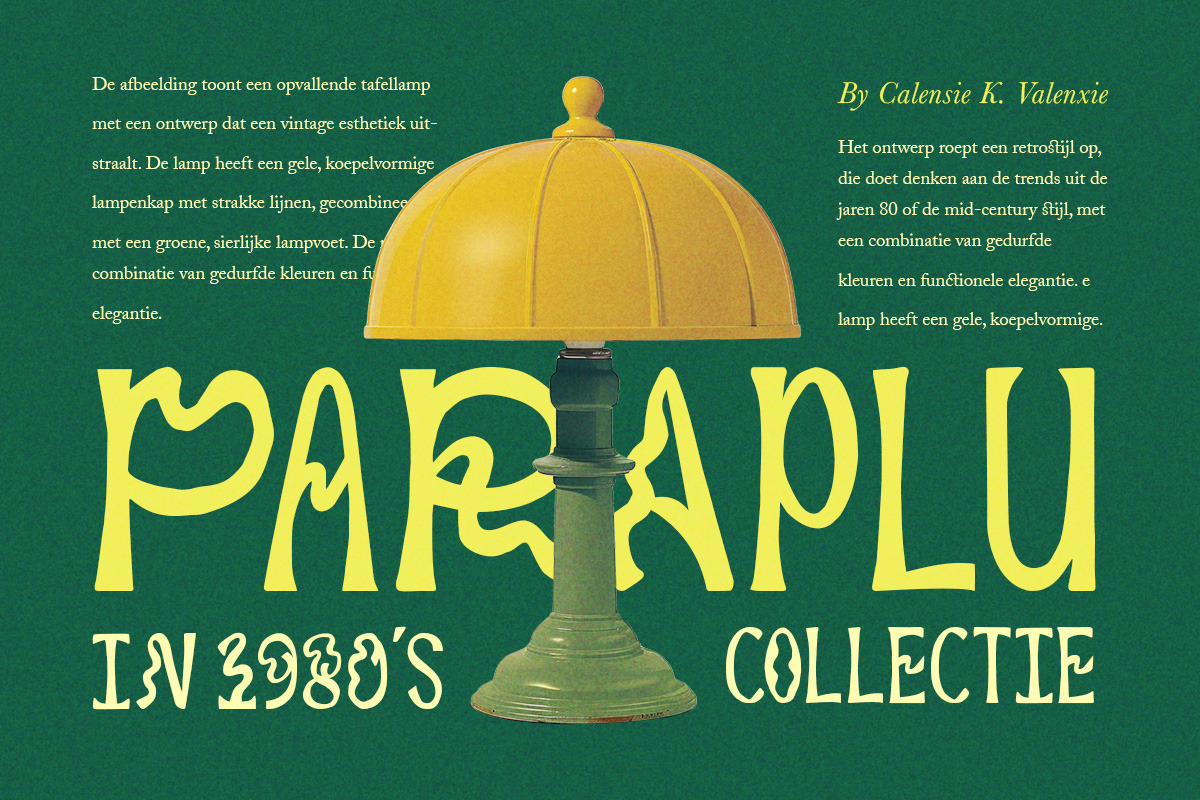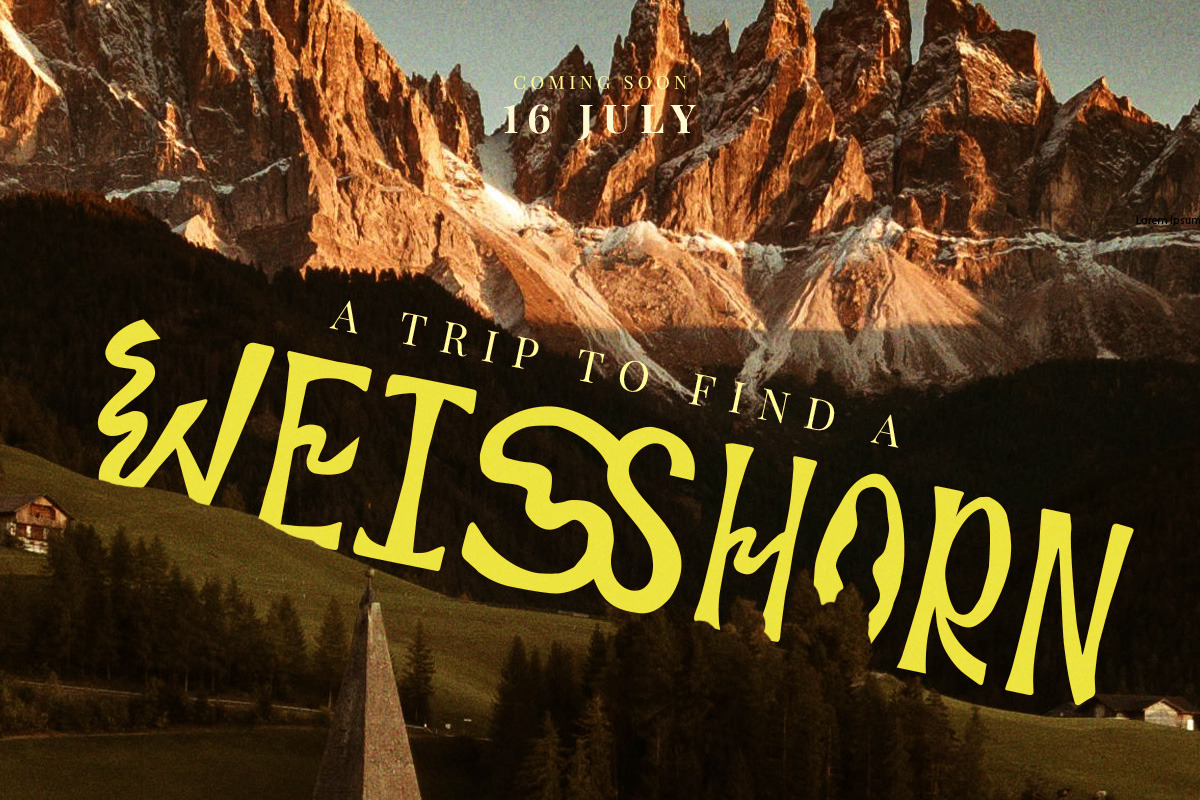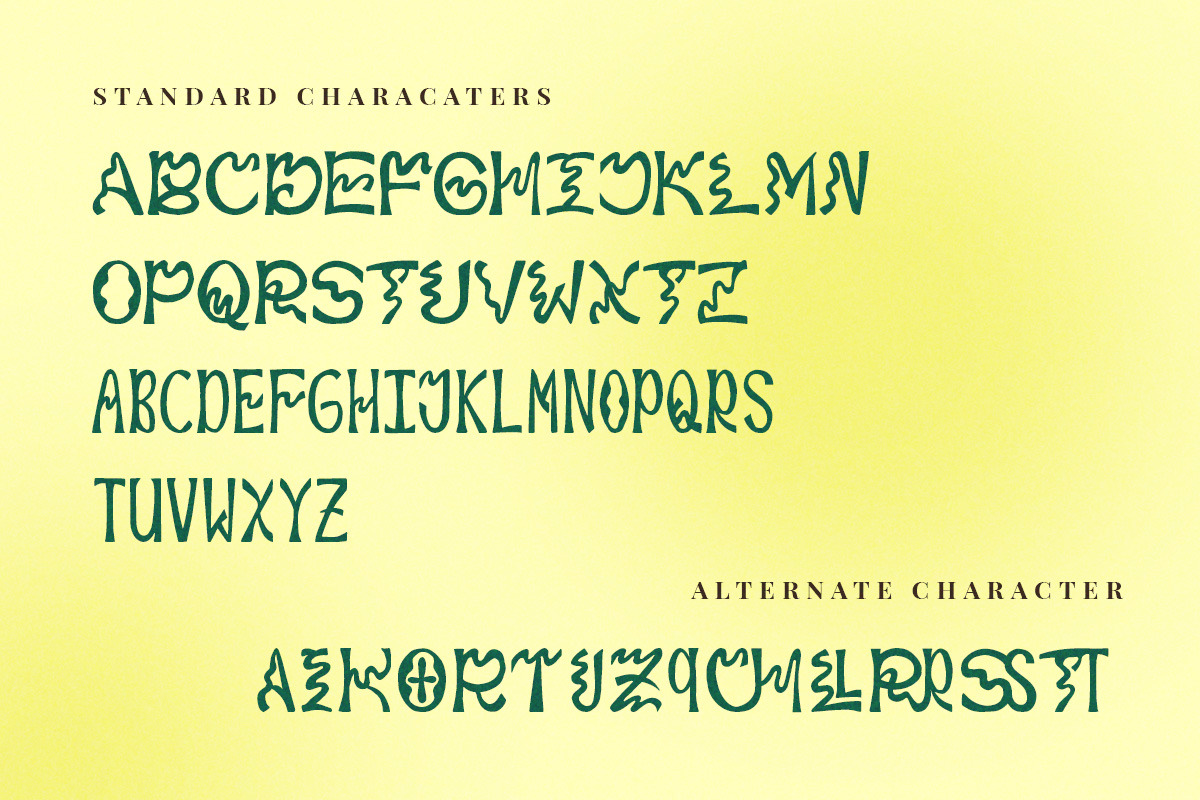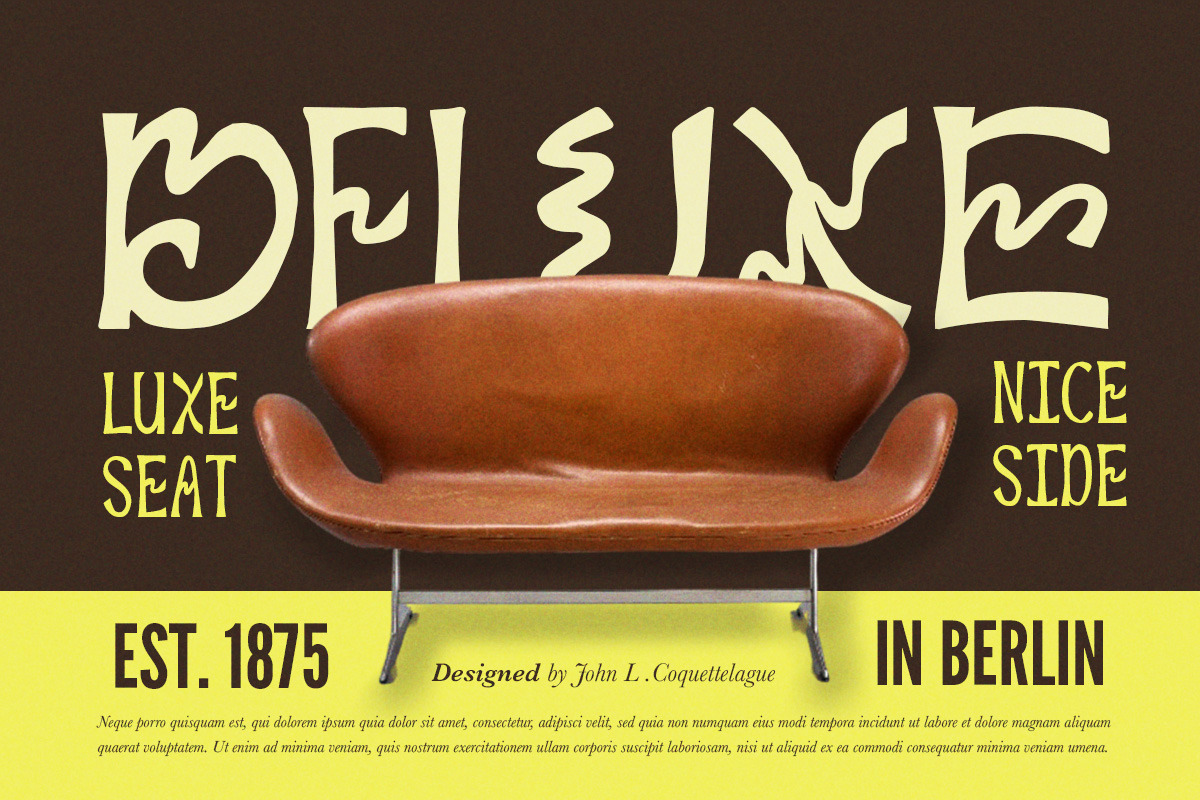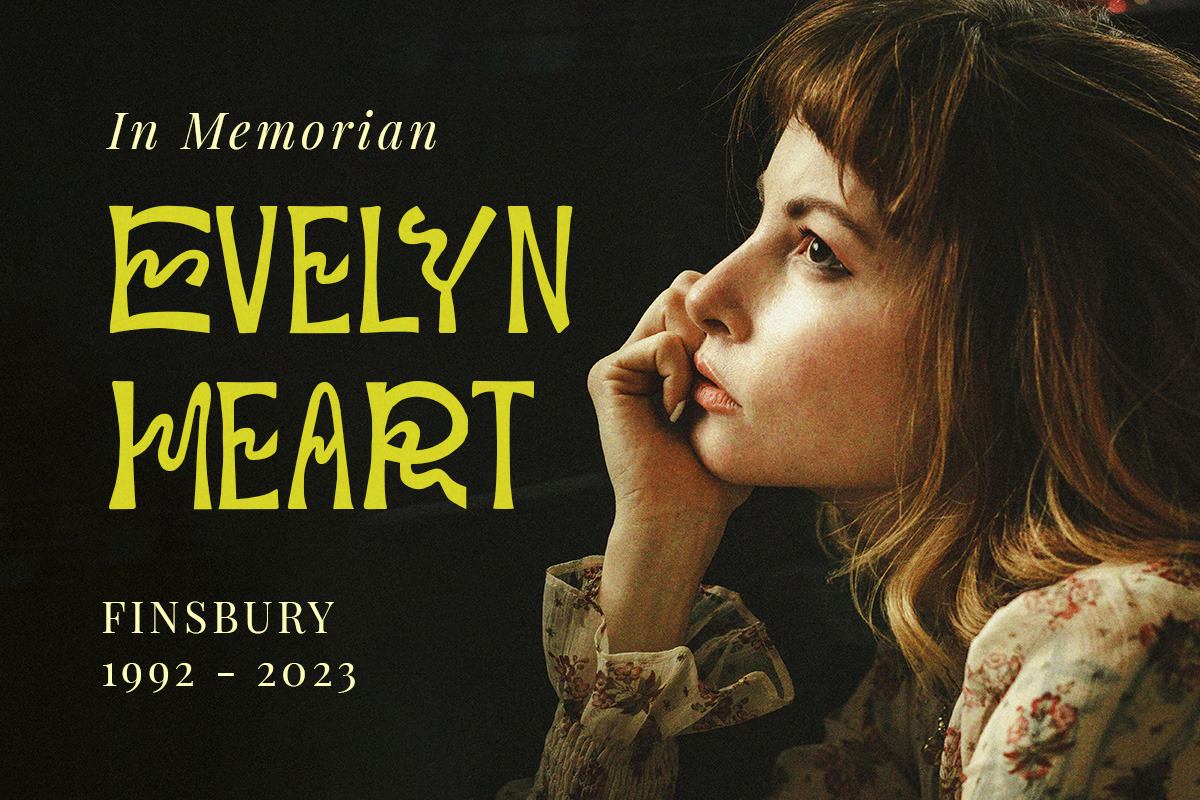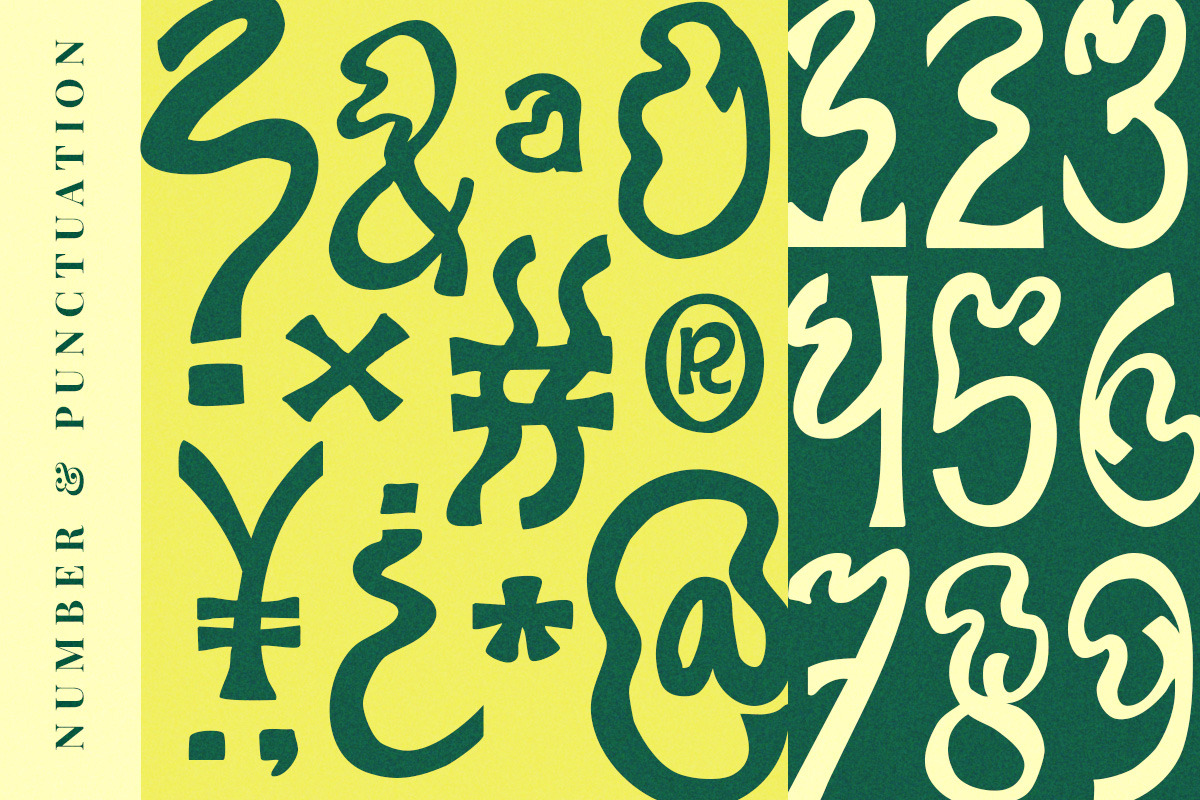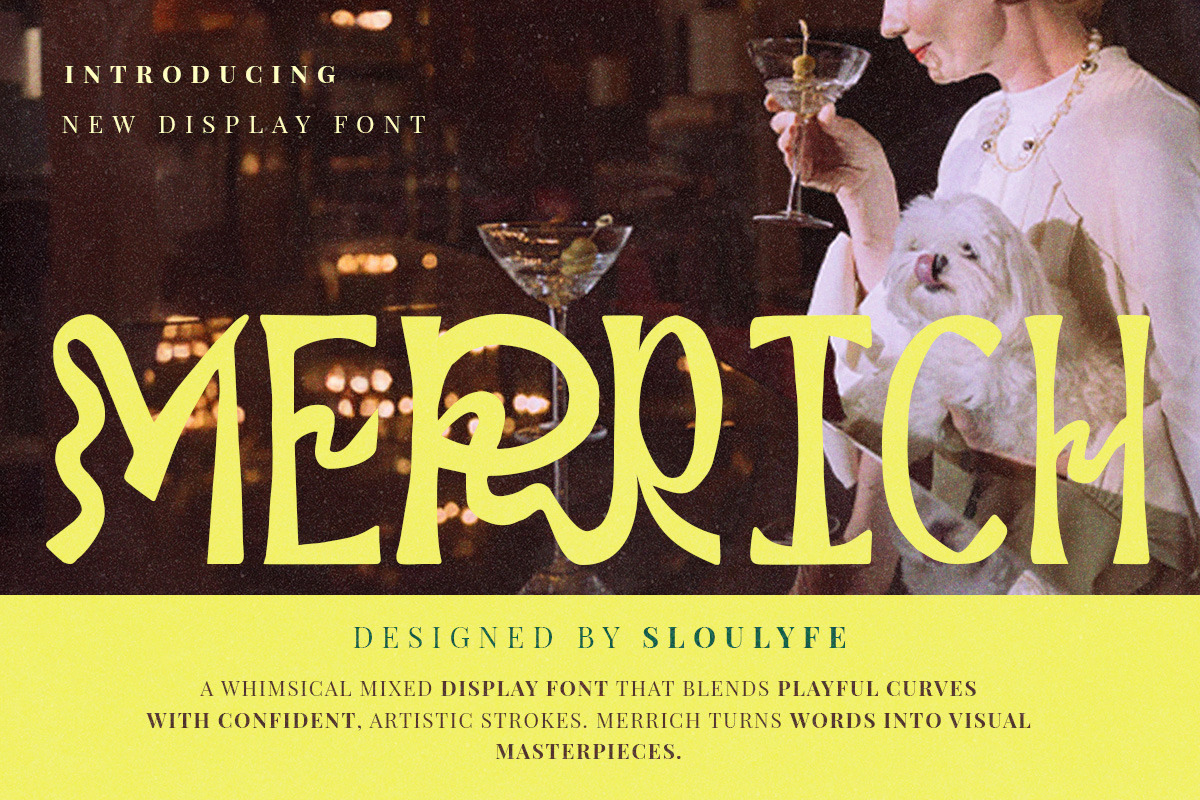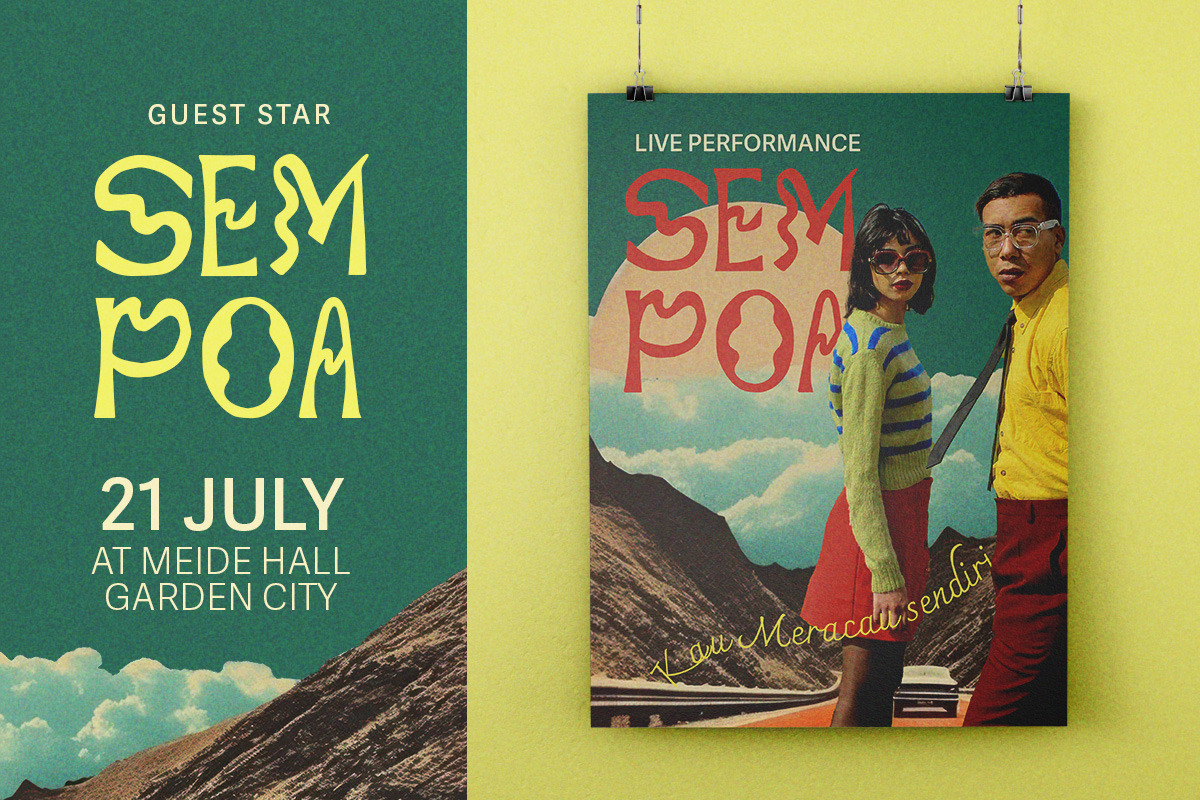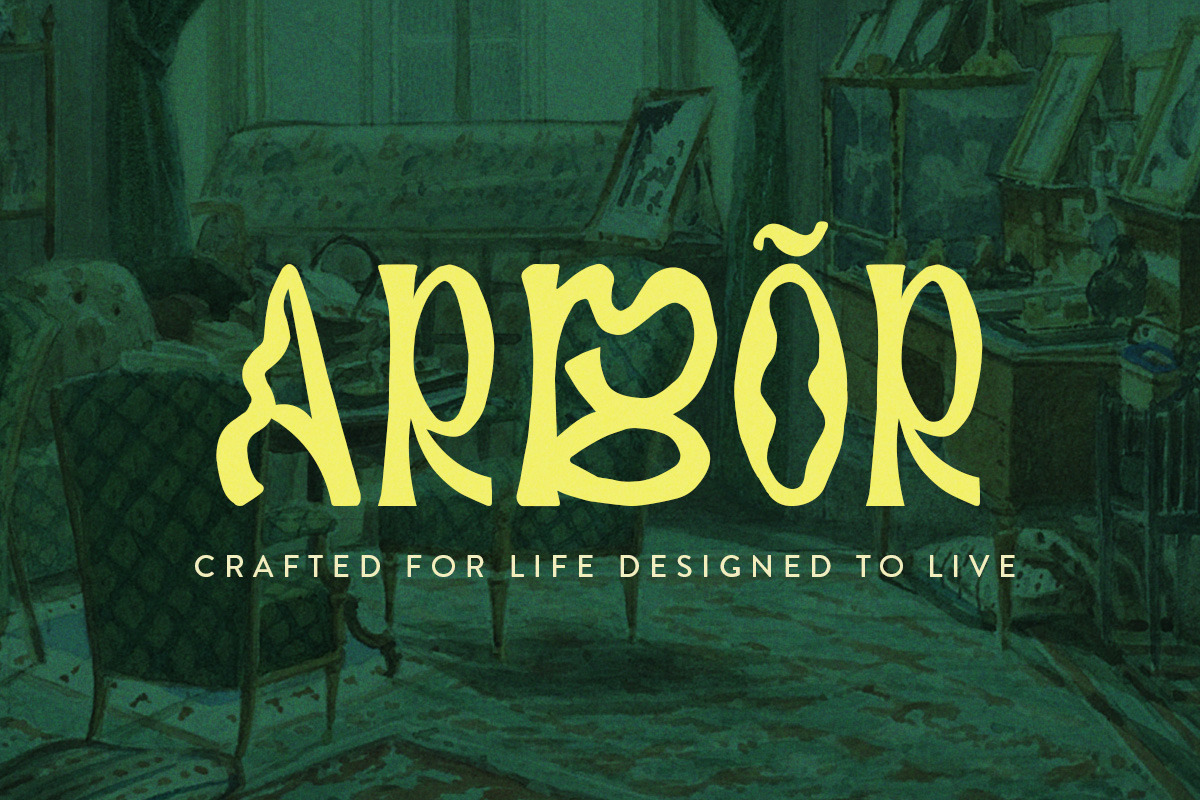
Merrich Whimsical Display Font
Merrich is a whimsical mixed display font that combines playful curves with bold, artistic strokes, blending a hand-drawn charm with a touch of sophistication. Its organic fluidity and angular details make it perfect for headlines, branding, packaging, and editorial designs that crave personality and flair. Best showcased in large formats, Merrich transforms text into visual art, making it ideal for creatives looking to make a statement with quirky elegance and unforgettable style.